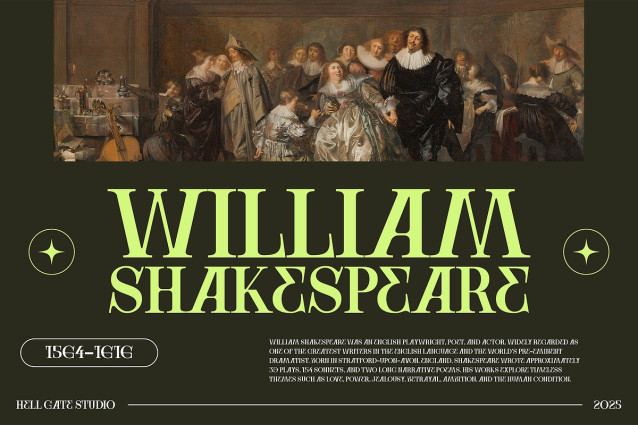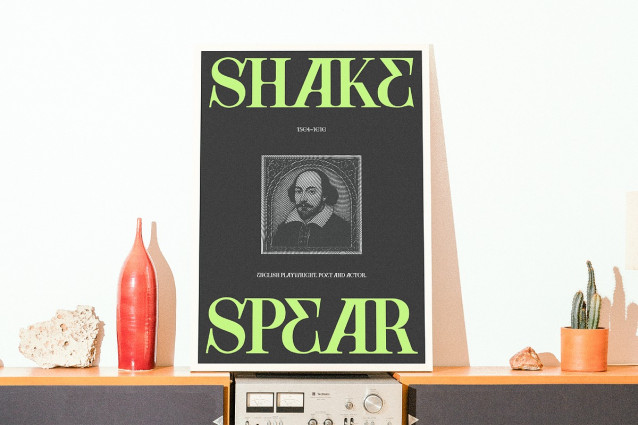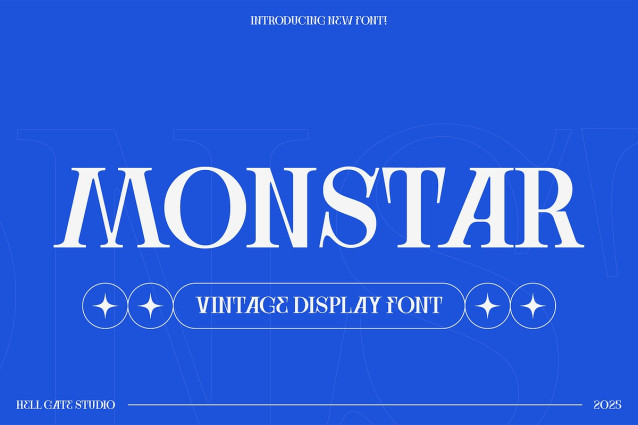
Monstar Font
Monstar Font: Steeped in elegance and rooted in the timeless theme of vintage, Monstar font is flexibility personified. Effortlessly edit the text to your heart’s content or play around with colours; this Display Serif font offers ease of customization.